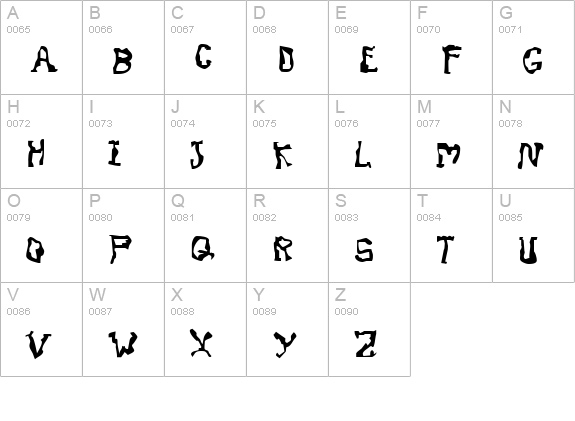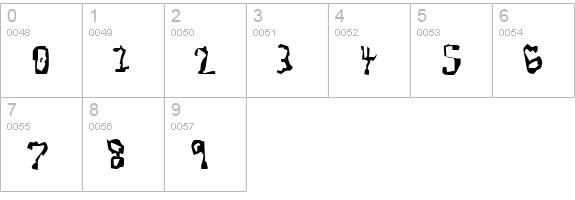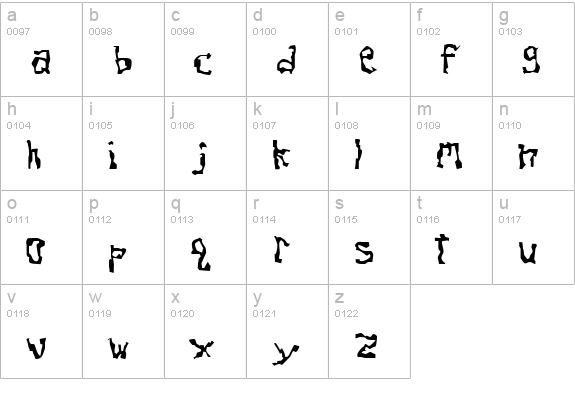
Dissonant Fractured Font Details
Introducing Dissonant Fractured font, a striking typeface that perfectly embodies a sense of avant-garde creativity and modern design. This unique font features fractured and dissonant letterforms that evoke a sense of edgy sophistication and artistic flair. With its unconventional style and bold presence, Dissonant Fractured font is sure to make a powerful statement in any project. What makes Dissonant Fractured font even more appealing is that it is available for free download at FontsMarket.com. This means you can easily access this extraordinary font and use it in your creative endeavors without any cost. Don't miss out on the opportunity to add a touch of originality and intrigue to your designs with Dissonant Fractured font. Download it for free today and unleash your creativity like never before.